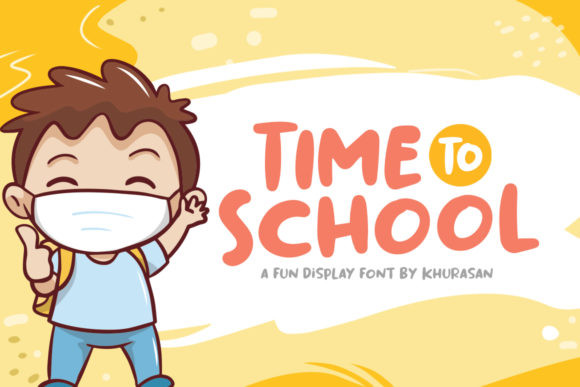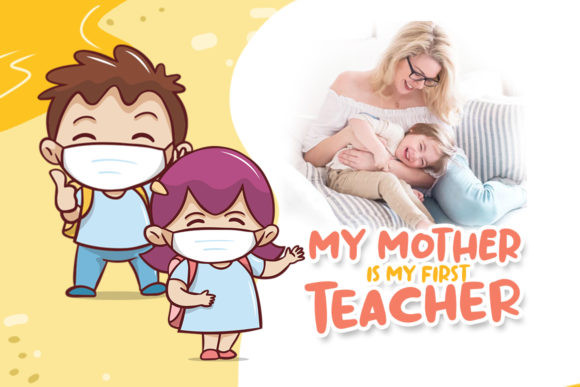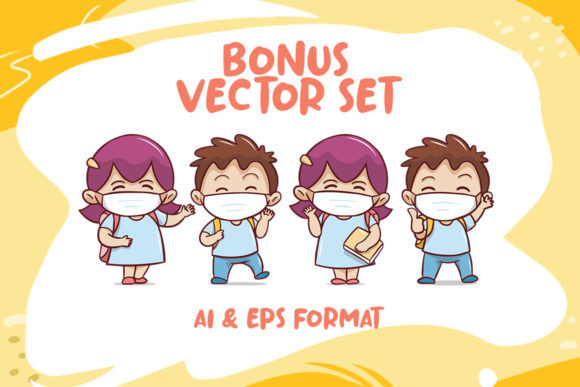
Time To School Font
Time to School a fun display font with a playful theme for your fun projects. It is suitable for logos, branding, greeting card, poster and more.